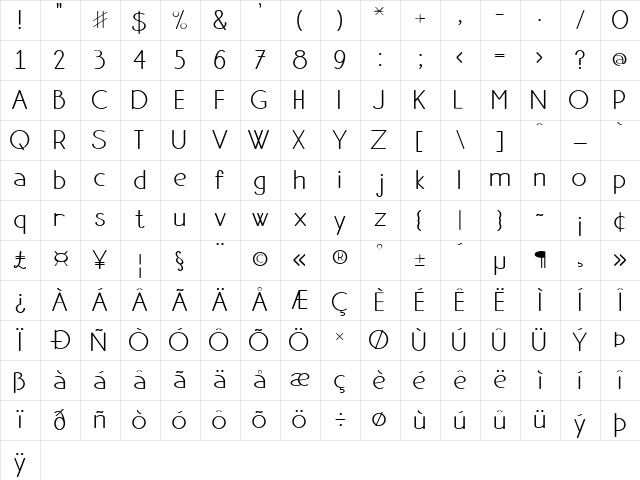
Danae Regular
Designer: Marco Ballar￿
Complete Danae Regular glyph index. Displaying only characters natively supported by Danae Regular font.
Design Context for Danae
Danae is a composed and adaptable typeface that performs quietly and consistently across a wide range of design contexts.